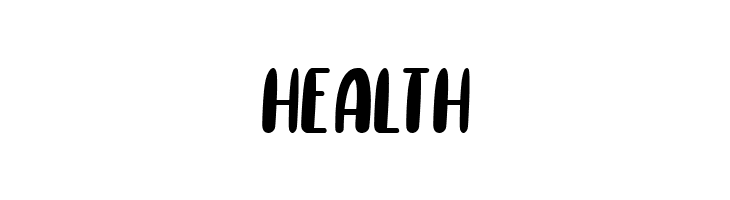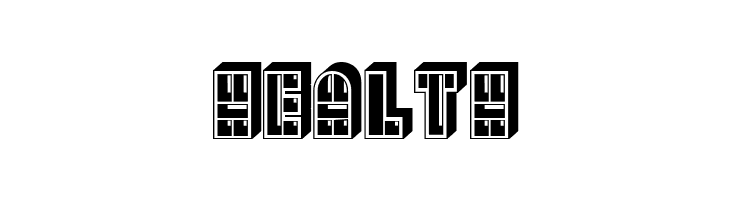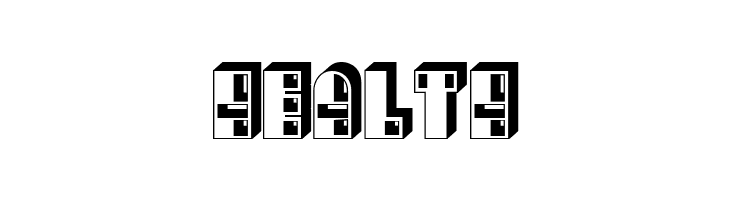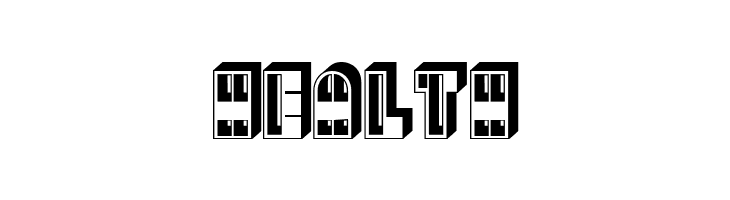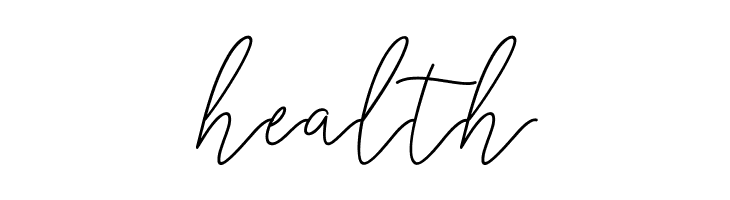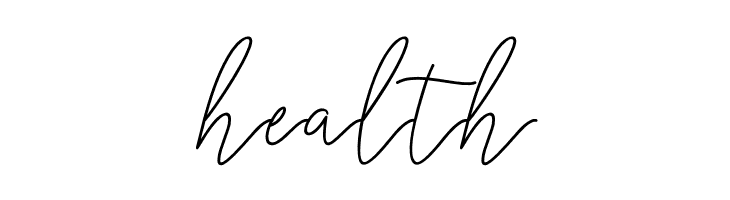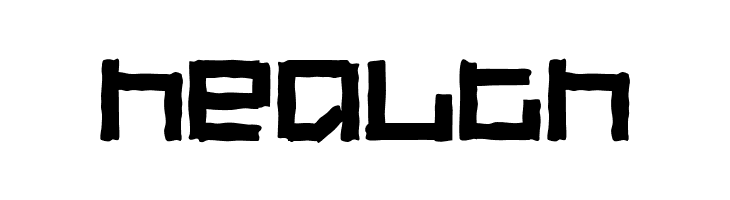
• Range Extravagant Regular
A bold, decorative font with a three-dimensional, geometric style.
• Range Fancy Regular
A bold, three-dimensional font with geometric, shadowed letters.
• Range Orange
A playful, bold, and rounded handwritten font.
• Range Regular
Bold, decorative font with a 3D shadow effect and textured interior.
• Ranger Regular
• Ranget
A dynamic, handwritten cursive font with expressive, fluid strokes.
• Ranget
A lively, handwritten font with fluid strokes and a personal touch.
• RanggaScript
A graceful script font with fluid, connected strokes and elegant curves.
• RanggaScript
A flowing, elegant script font with interconnected cursive letters.
• Rangly PERSONAL USE ONLY
A bold, angular font with a modern, stencil-like design.